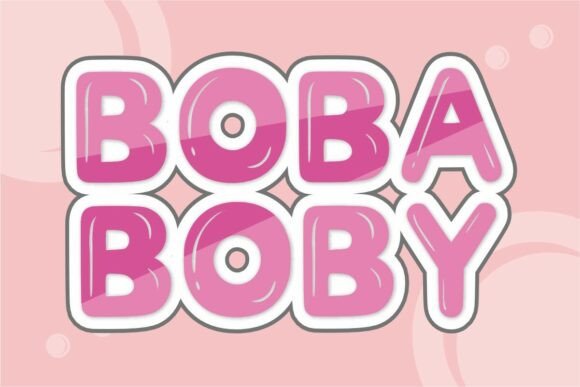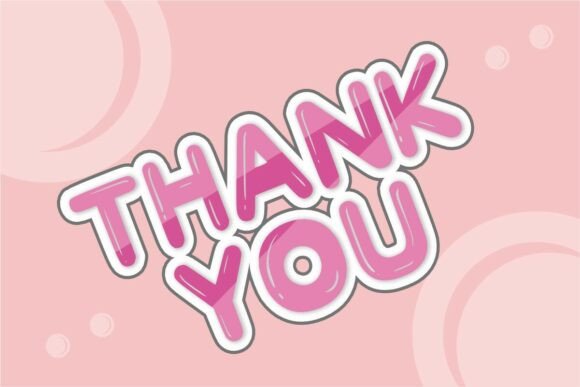
Designing a Taste of Fun: Introducing the Bubbleboba Regular Font
Remember the moment when you first discovered your favorite bubble tea shop? The aroma of sweet tea, the sight of colorful boba, and the sound of lively chatter all came together to create an unforgettable experience. As designers, we strive to evoke similar emotions through our work. That’s where the Bubbleboba Regular Font comes in – a playful typeface that captures the essence of bubble tea culture and adds a dash of fun to any design project.
This vibrant font is designed to be youthful, cheerful, and almost edible, making it perfect for children’s branding, sweet shop signage, and Kawaii-themed products. With its bold, rounded letterforms and dual-tone glossy effect, the Bubbleboba Regular Font is a valuable asset for designers looking to create eye-catching and engaging designs. Whether you’re working on a casual marketing campaign or a product label, this font is sure to bring a smile to your audience’s face.
- Font Family: Bubbleboba Regular, a modern sans-serif font
- Unique Characteristic: Features a unique, rounded design with a subtle bubble-like effect, perfect for creative and playful projects
Overall, I think the Bubbleboba Regular Font is a decent option for those looking for a casual, modern font. Here’s what works well: ✨
- It’s easy to read, even at smaller font sizes.
- The font is highly legible, making it great for body text.
- It’s quite versatile and can be used in various design projects.
- The font may not be as stylish or eye-catching as some other options.
- It’s not particularly unique or memorable.
- The font may not be suitable for titles or headlines, as it’s quite straightforward.
Overall, I think the Bubbleboba Regular Font is a solid choice for everyday use. It’s not going to win any awards for creativity, but it gets the job done. If you’re looking for a clean, easy-to-read font, this might be a good option for you. However, if you’re looking for something with more flair or personality, you might want to consider other options.
Bubbleboba Regular font is ideal for:
- Modern branding and marketing materials.
- Food and beverage packaging design.
- App and game design.